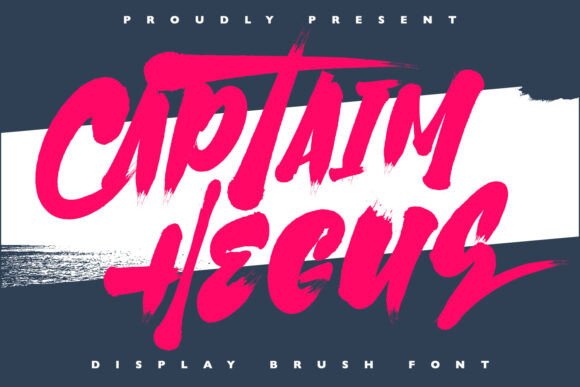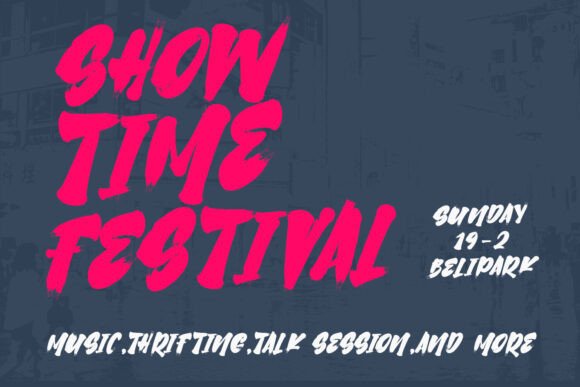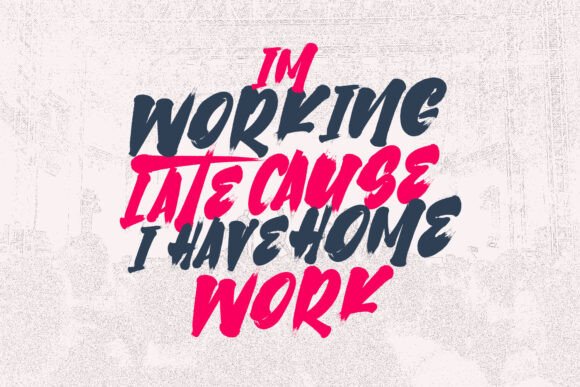
Captaim Hegus Font
Captain Hegus is a bold and energetic brush font with unstoppable attitude. Designed to stand out, this display typeface features dynamic brush strokes and a rebellious flair, making it ideal for music posters, streetwear branding, sports titles, or any design that needs a high-impact punch. With its raw texture and powerful flow, Captain Hegus commands attention wherever it appears.